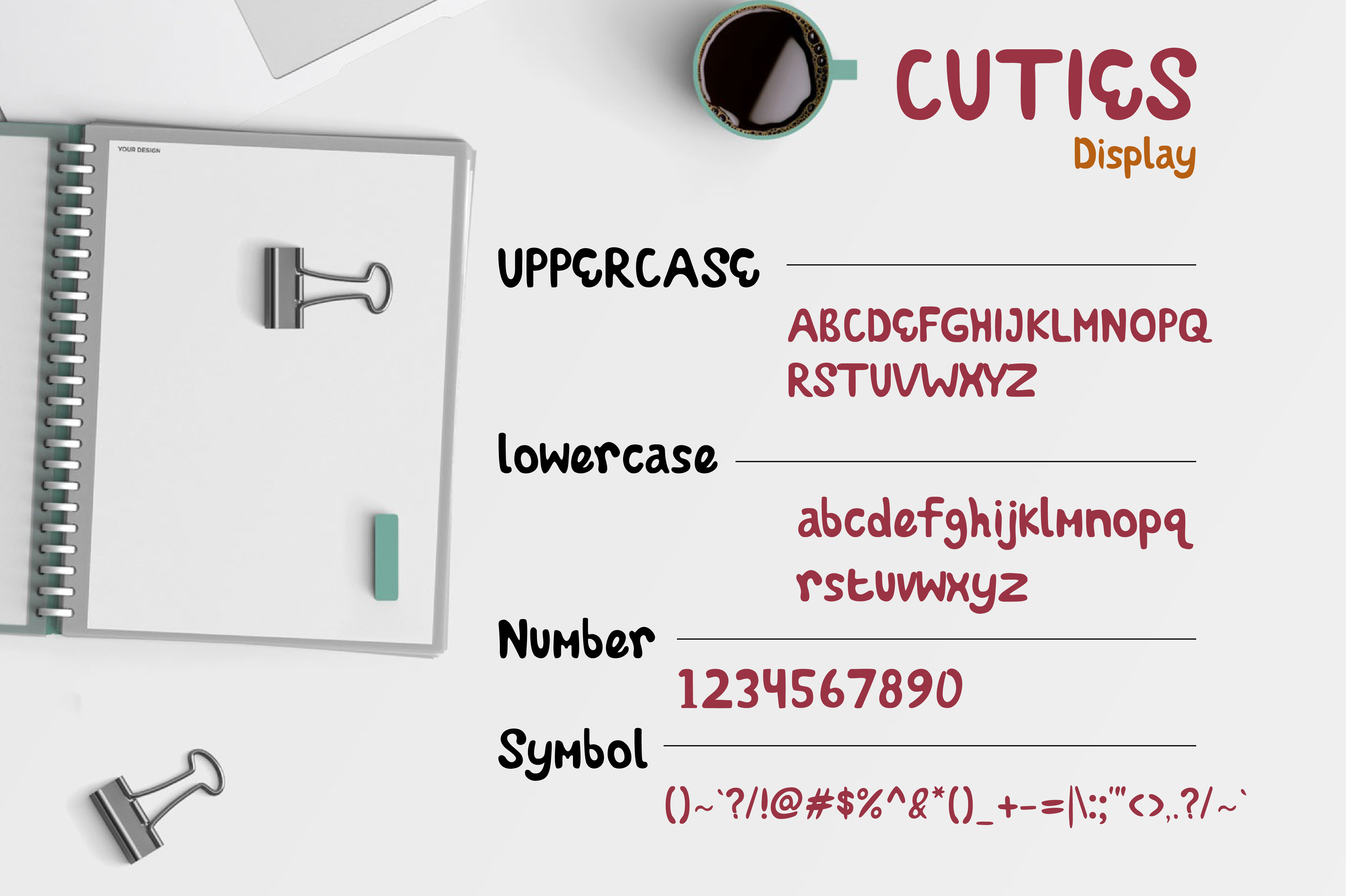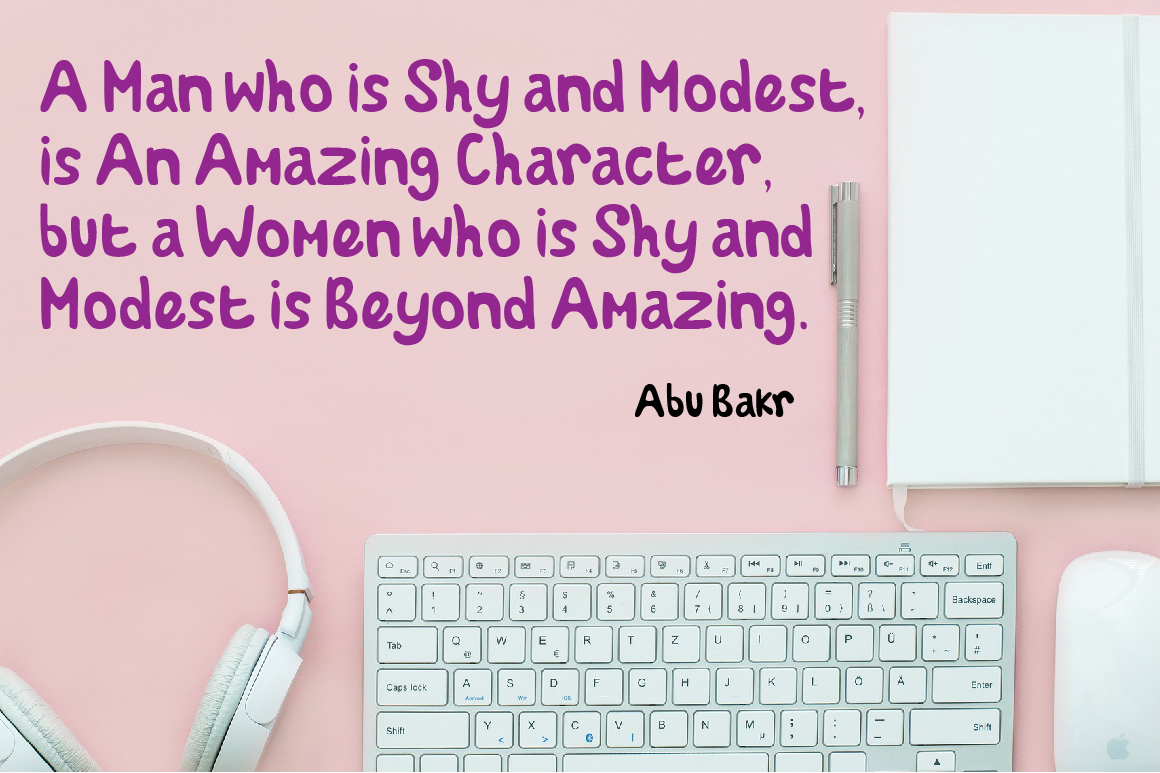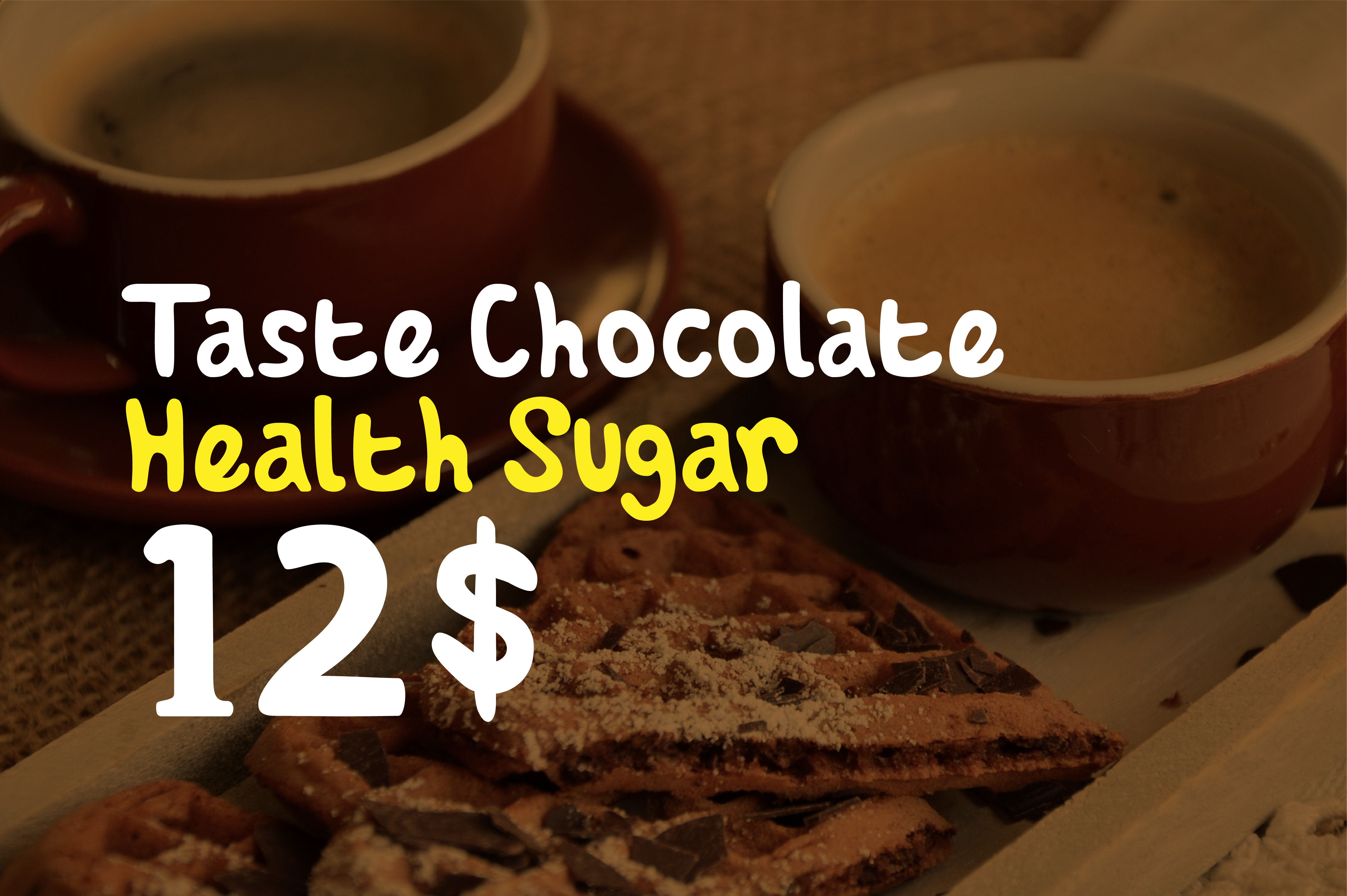
Introducing Cuties Font: The Playful Blob Style Handwritten Font
Are you tired of using the same old fonts in your designs? Look no further! Cuties Font is here to add a touch of playfulness and whimsy to your projects. This blob style, handwritten font is perfect for designers and crafters who want to create fun and eye-catching display designs.
What is Cuties Font?
Cuties is a carefree sans serif font that is sure to bring a smile to your face. Its playful and bubbly style makes it perfect for a variety of design projects, from children’s party invitations to social media graphics. The font’s blob-like style gives it a unique and quirky feel that is sure to stand out from the crowd.
Features of Cuties Font
- Blob style, handwritten font: Cuties Font features a unique blob-like style that gives it a playful and whimsical feel.
- Playful sans serif: The font’s sans serif design makes it easy to read and perfect for display designs.
- Fun and eye-catching: Cuties Font is sure to add a touch of fun and personality to your designs.
- Perfect for designers and crafters: Whether you’re a professional designer or a crafter, Cuties Font is a great addition to your font collection.
Uses for Cuties Font
Cuties Font is perfect for a variety of design projects, including:
- Children’s party invitations: The font’s playful style makes it perfect for kids’ party invitations, decorations, and other party materials.
- Social media graphics: Add a touch of fun and personality to your social media graphics with Cuties Font.
- Signs and posters: The font’s bold and playful style makes it perfect for signs and posters.
- Craft projects: Cuties Font is a great addition to any crafter’s font collection, perfect for use in scrapbooking, card making, and other paper crafts.
Why Choose Cuties Font?
There are many fonts to choose from, but Cuties Font stands out from the crowd. Here are just a few reasons why:
- Unique style: Cuties Font features a unique blob-like style that is sure to stand out from the crowd.
- Easy to read: Despite its playful style, Cuties Font is easy to read and perfect for display designs.
- Versatile: The font’s playful style makes it perfect for a variety of design projects.
- Adds personality: Cuties Font is sure to add a touch of fun and personality to your designs.
Here are a few tips for using Cuties Font:
- Experiment with different sizes: Cuties Font looks great in a variety of sizes, from small to large.
- Pair with other fonts: Try pairing Cuties Font with other fonts for a unique and interesting look.
- Use in combination with images: Cuties Font looks great when used in combination with images and graphics.
Cuties Font is a playful and whimsical font that is sure to add a touch of fun and personality to your designs. Its unique blob-like style and easy-to-read design make it perfect for a variety of design projects. Whether you’re a professional designer or a crafter, Cuties Font is a great addition to your font collection. So why wait? Add Cuties Font to your collection today and start creating fun and eye-catching display designs!